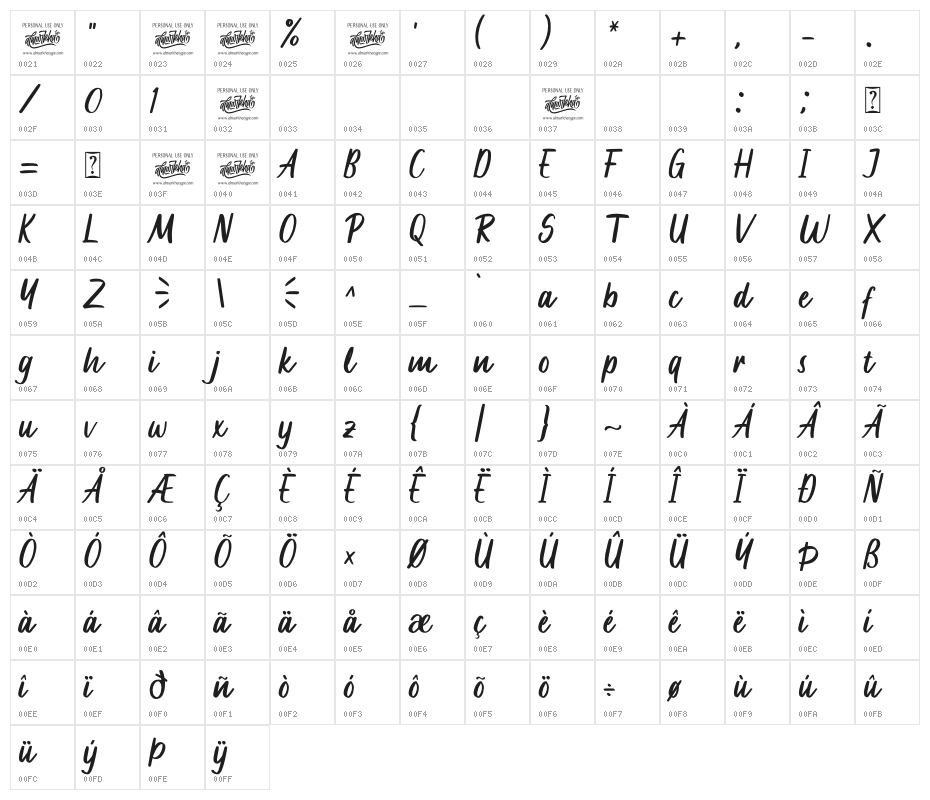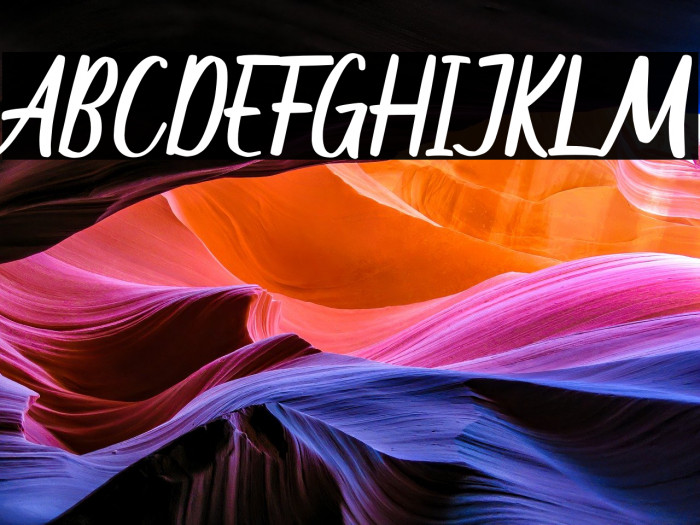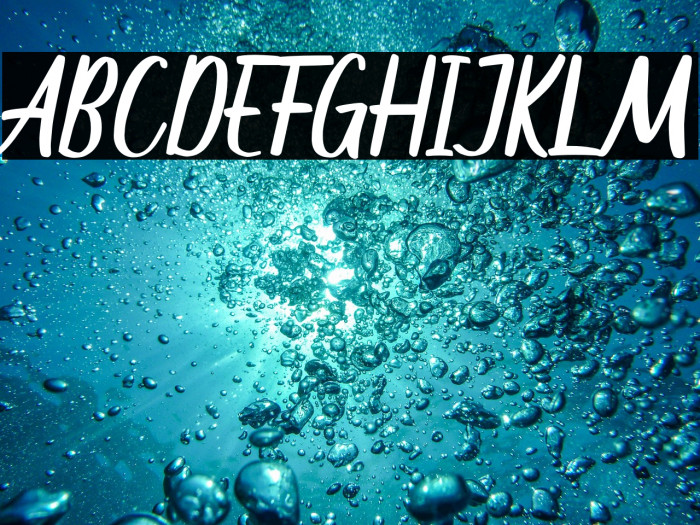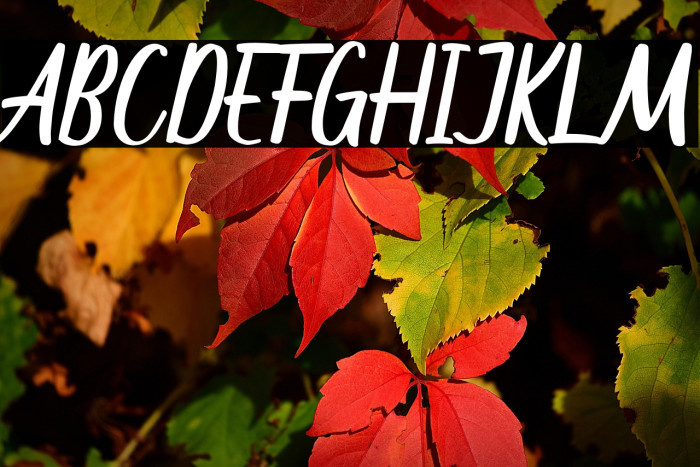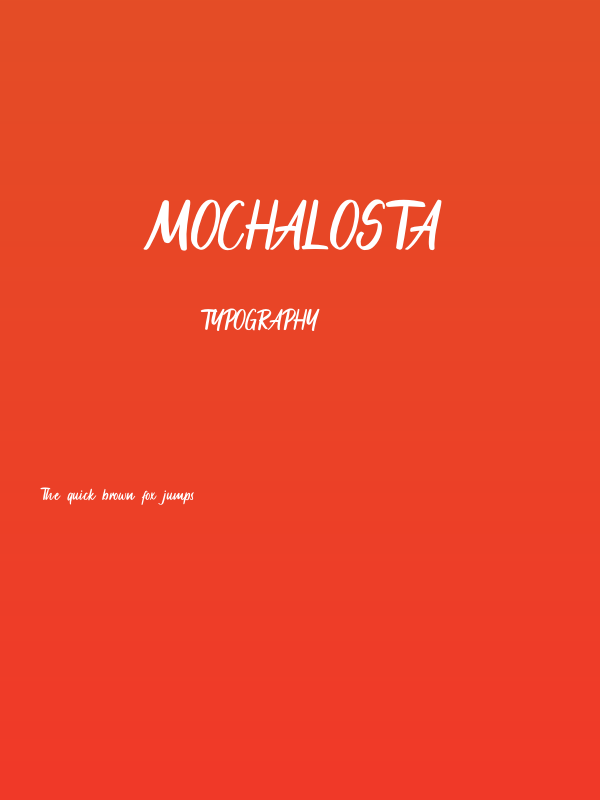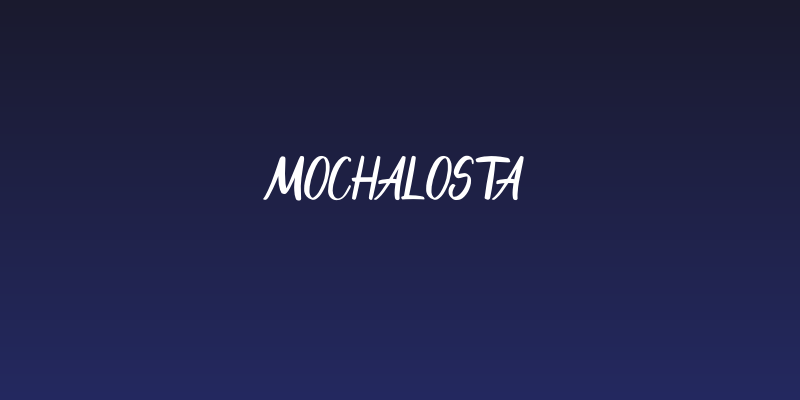
Mochalosta Font
Mochalosta Description
This font features a dynamic and expressive style, characterized by its fluid, handwritten appearance. The uppercase letters are bold and slightly slanted, giving a sense of movement and energy. The lowercase letters maintain a consistent flow, with smooth curves and a casual yet elegant demeanor. The numbers and special characters complement the overall style with their cohesive design. This font is ideal for projects that require a personal touch or a creative flair, such as invitations, branding, or artistic designs.
| Use Case | Logos, Headlines, Artistic designs |
| Proposed Projects | Ideal for invitations, branding, artistic designs, and any project needing a personal touch. |